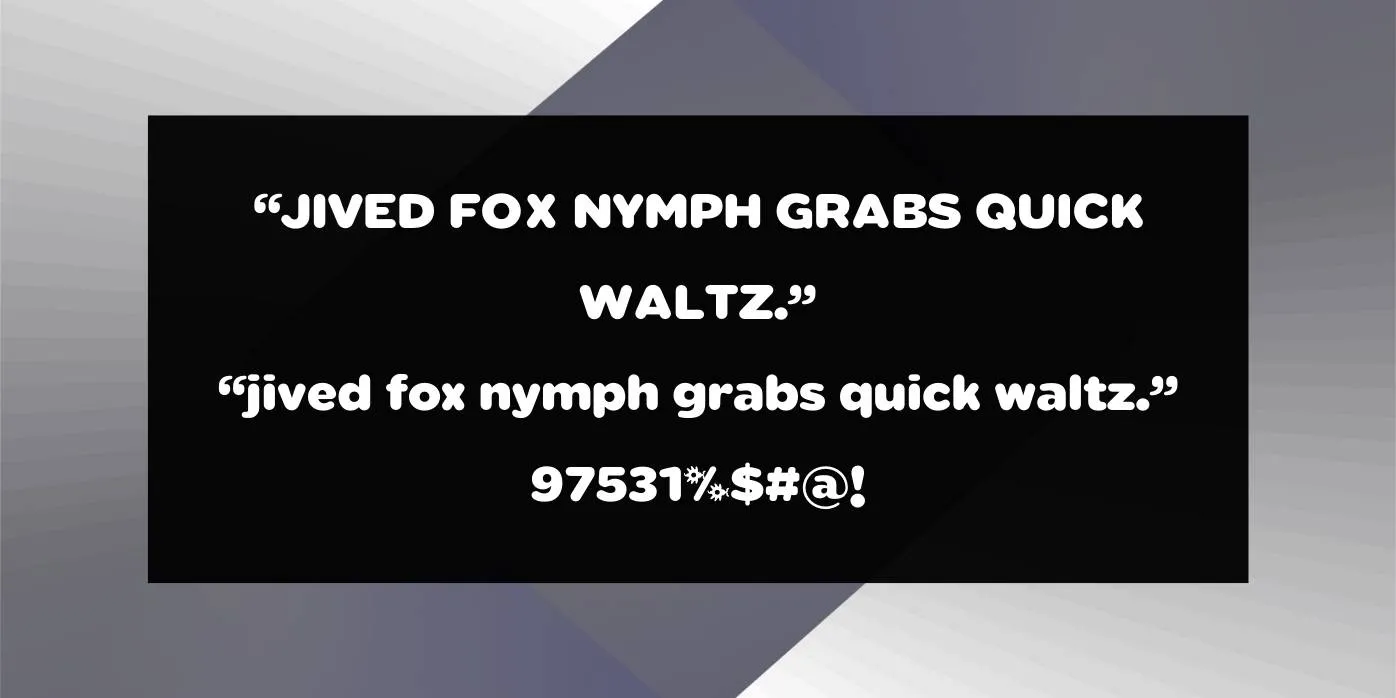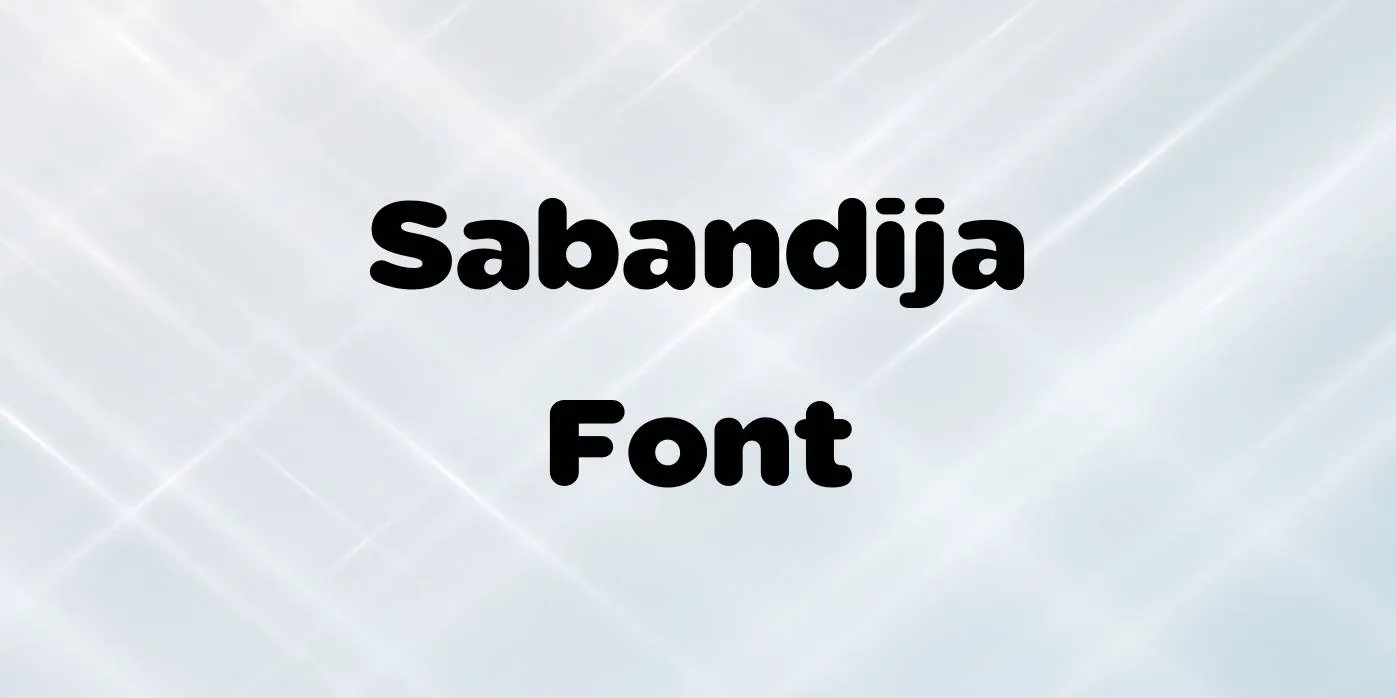
Sabandija Font
Sabandija font is a very nice and elegant font. It is designed by DeFharo and is a heavy-rounded font. This typeface has been used since the early 20th century. Its look is very attractive because of its thick and thin different strokes and unique characters.
This font has also the ability that can be used by pairing with trully font. It provides a very nice look by pairing it with a grand font. This stunning font was first launched in 1901 by the Chilean- type foundry CIA Ltda. It is also very good for using it in copy-paste function.
This stunning typeface includes weights regular, bold, and black. It contains a total of 367 glyphs and 405 characters. This font has many elements like capital letters, small letters, numbers, punctuations, symbols, and special characters This font provides the facility of an online generator tool which makes it more efficient in working. It supports file formats TTF (TrueType Font) and OTF (Open Type Font).